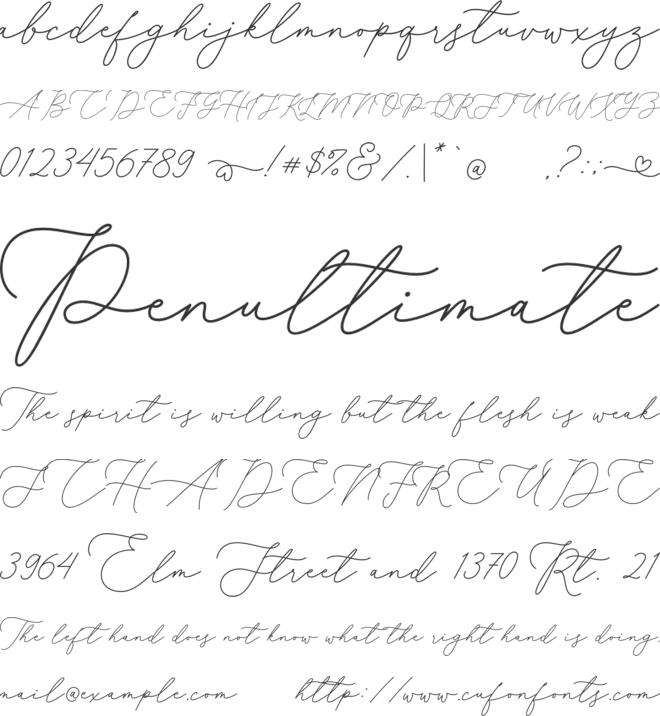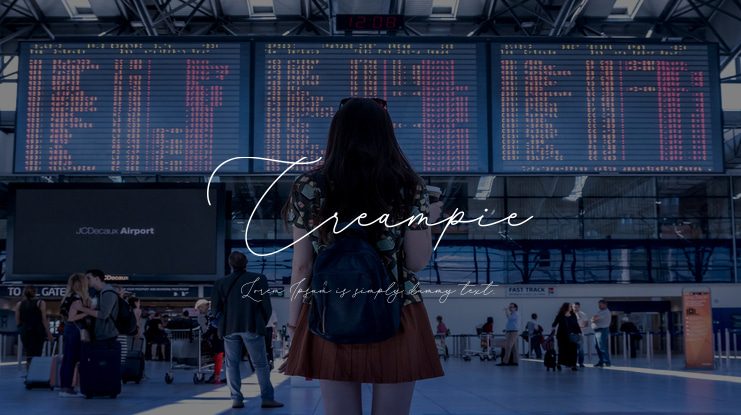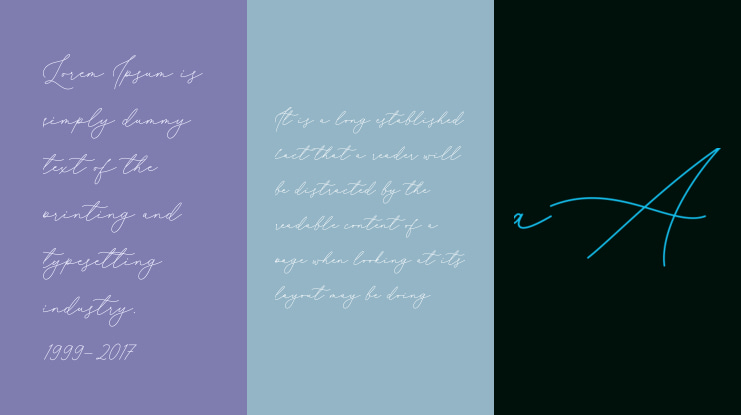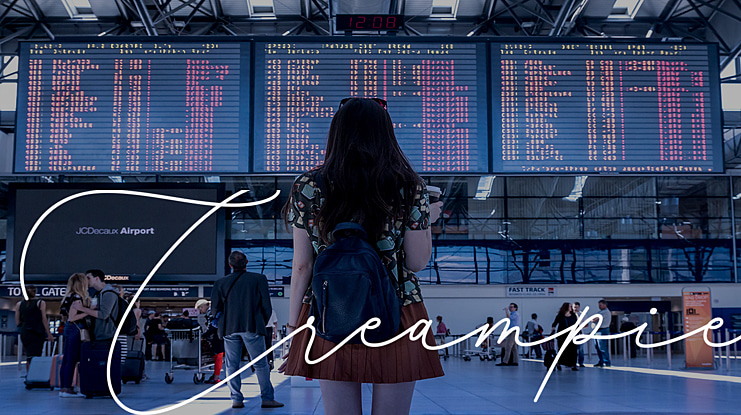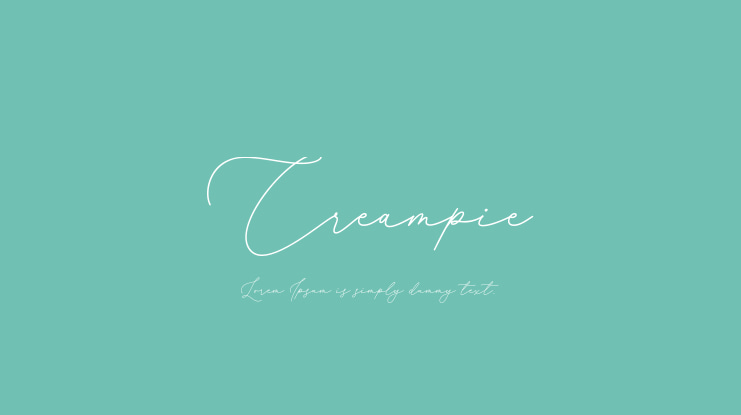
Creampie Font
Ef Studio - Luthfi Fauzi
Creampie is a lovely monoline script with heart swashes.
Features : Beginning and ending swashes
FITUR : 3 gaya ekor awal dan akhir